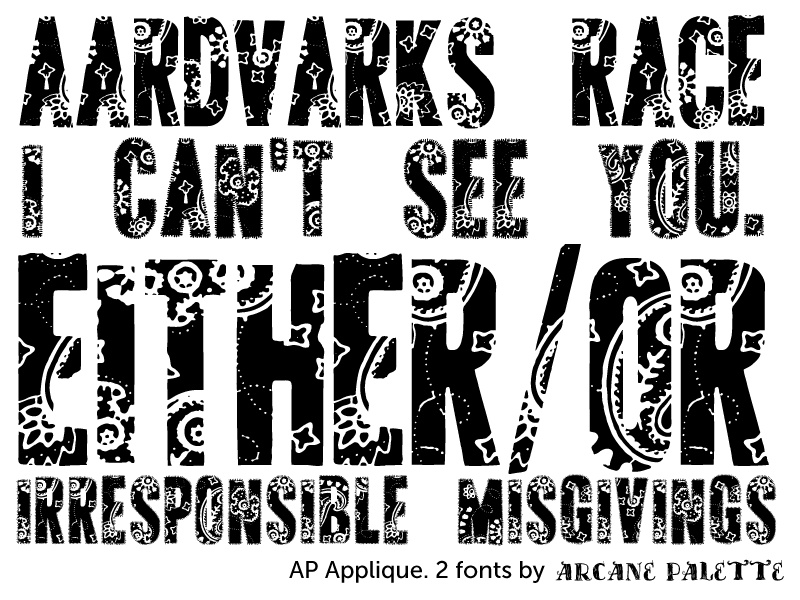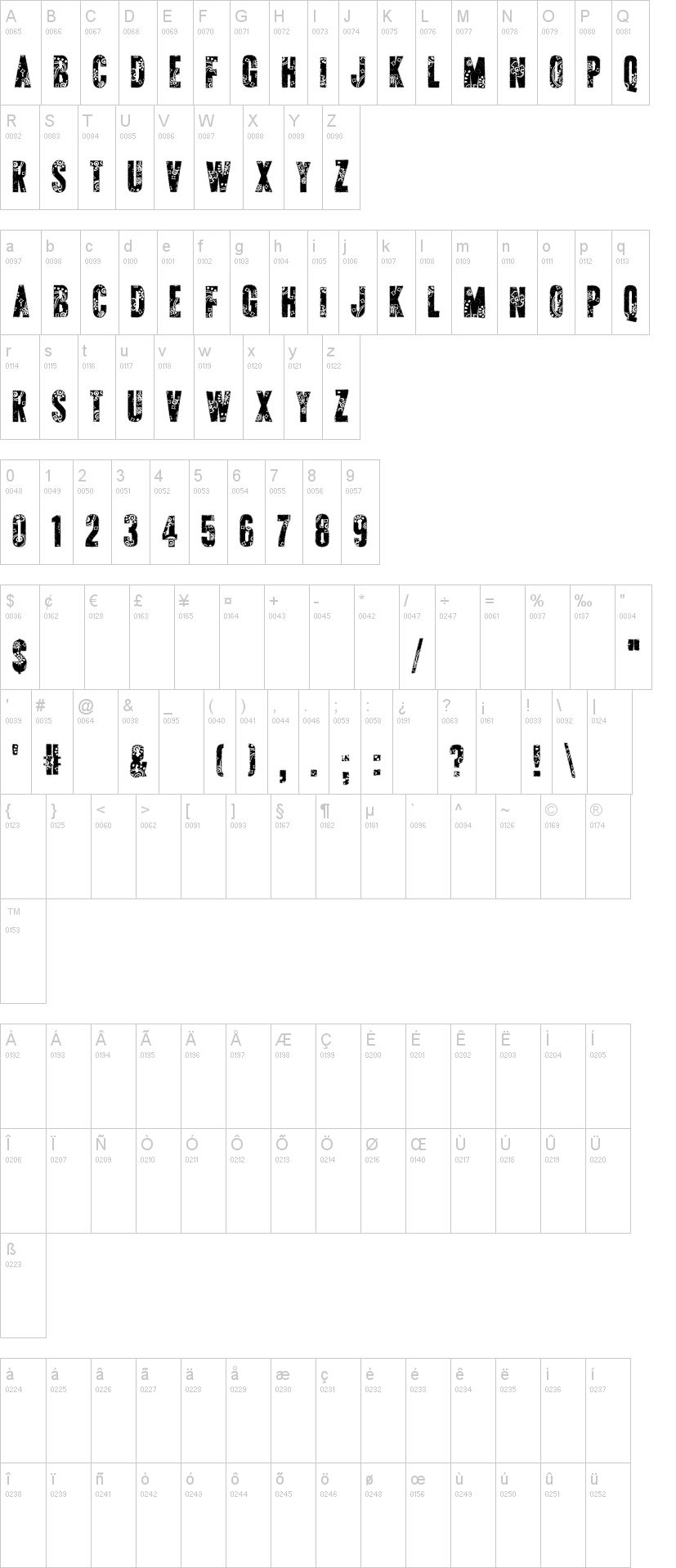
AP-Applique-Cut.ttfNote of the authorA display font with caps-only. Simplified for easy font embedding in web pages. May be used with @font-face, Cufon or sIFR if credit is given in the source code. Commercial licenses available upon request.